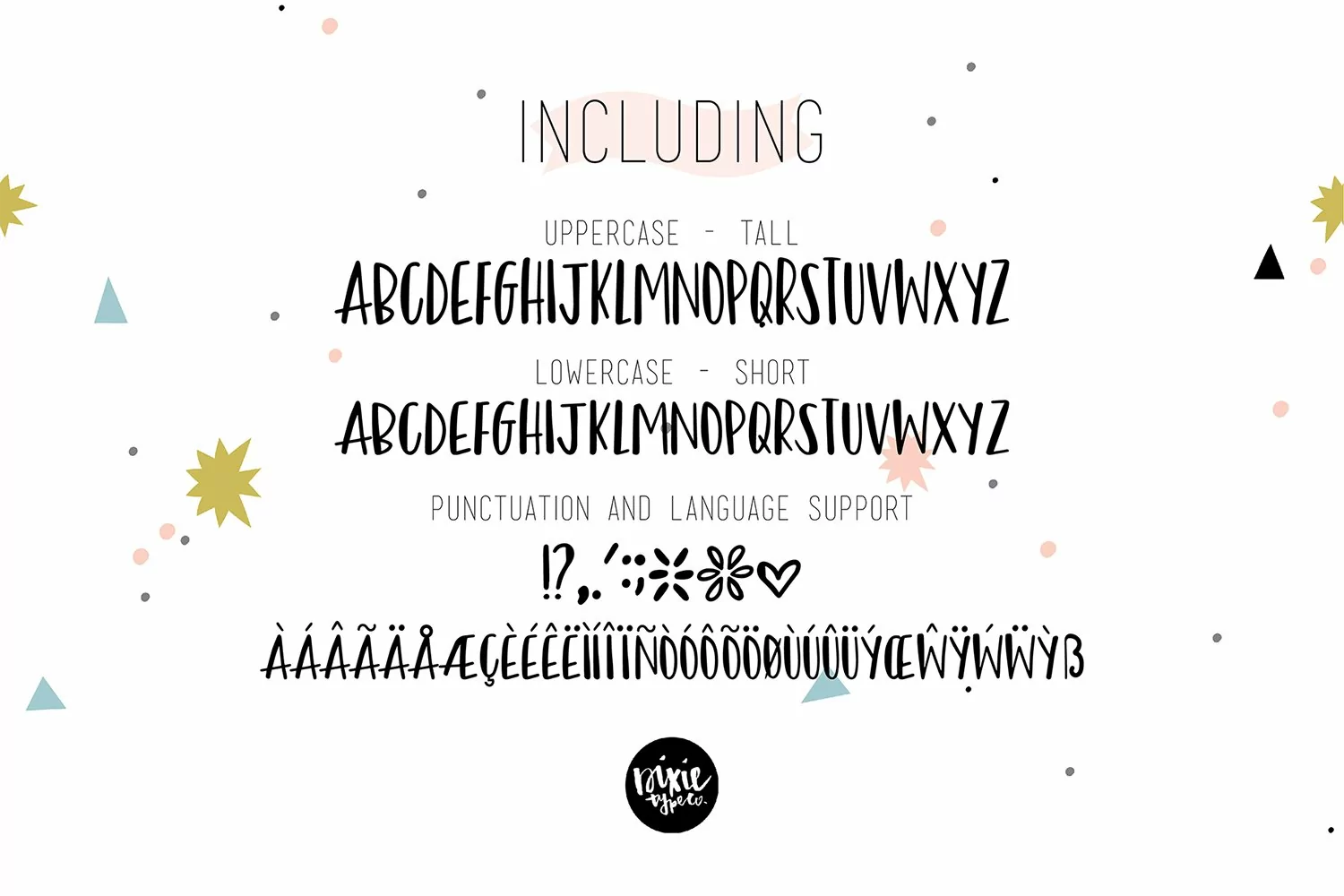
"Bronx Party"
This font includes a tall (uppercase) version and a shorter (lowercase) version.
Bronx Party is a simple sans hand lettered font that will compliment any script font. This works great as a display text, or in projects using lots of text. Use it on wedding invitations, business cards, party invitations, tags, etc.! This is the perfect sans font with a lot of personality to have on hand.
Font includes: Upper and lowercase glyphs, some punctuation, and extra language support of these characters:
ÀÁÂÃÄÅÇÈÉÊËÌ Í Î Ï ÑØÒÓÔÕÖÙÜÚÛẂŴẄẀÝÿỲÿÆŒÞÞ
~ key for the heart
}{ for the hollow florals
>< for the filled florals